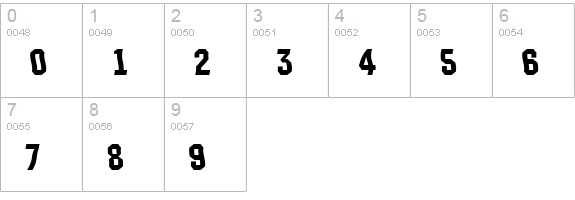
a_TechnicsWv DemiBold is a sub-bold, structured variant in the a_TechnicsWv typeface family \xE2\x80\x94 well suited to sub-headlines and emphasised passages.
The TechnicsWv DemiBold font is a bold and modern typeface that exudes strength and sophistication. Its sleek lines and robust letterforms make it perfect for a variety of design projects, from branding to advertising. This versatile font is sure to make a bold statement and leave a lasting impression on your audience. Best of all, the TechnicsWv DemiBold font is freely available to download at FontsMarket.com. You can easily access this powerful font and enhance your designs with its striking presence. Don't miss out on the opportunity to use this eye-catching typeface in your next project. Download the TechnicsWv DemiBold font today and take your designs to the next level!